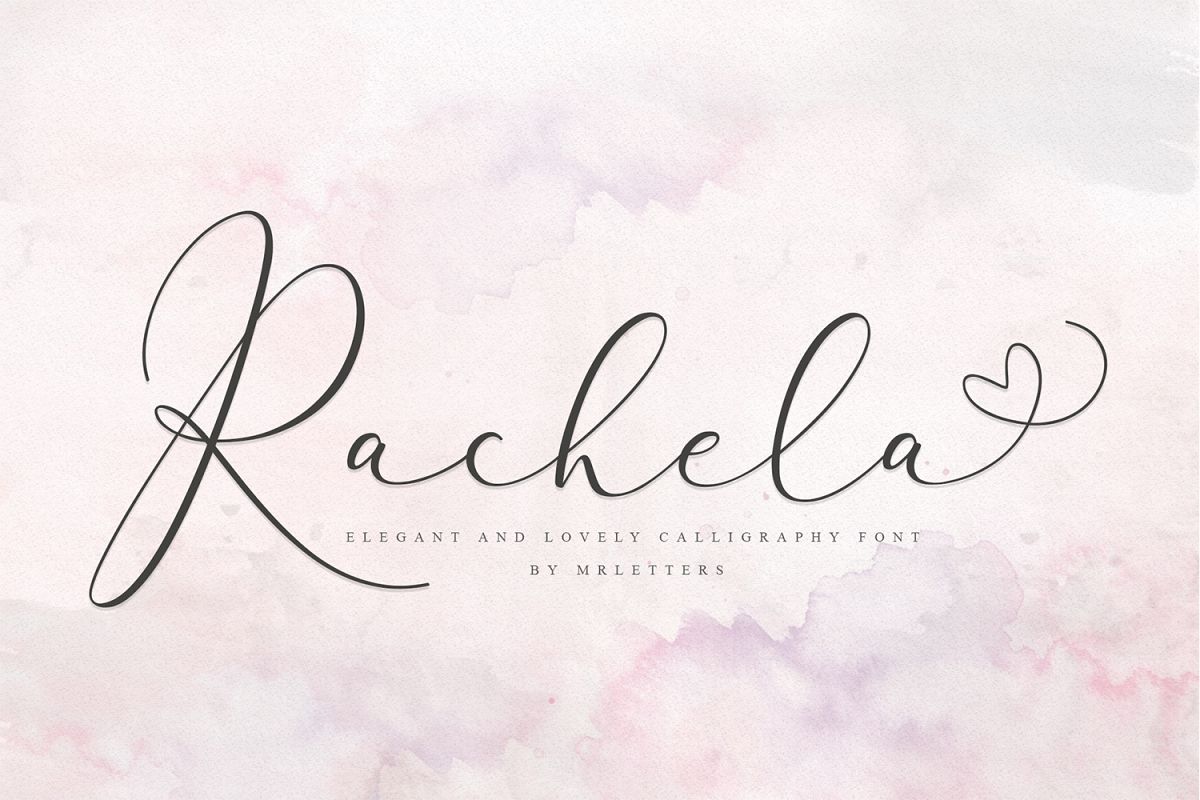
Rachela Lovely Calligraphy Font
Introducing
Rachela Lovely Calligraphy
A new and beautiful font, created to meet your needs in creating a beautiful and elegant design, this font is special for you.
Rachela Lovely Calligraphy
Font is perfect for branding, wedding invitations, magazines, mugs, business cards, quotes, posters, and more you can use on your big project would be very beautiful.
Rachela Lovely Calligraphy
This font has been equipped with OpenType features and has many glyphs. and of course by having many of these glyphs will be able to choose the letters according to your liking, lots of variations and options for each letter, so you can customize your design choices and also have other languages ​​supported.